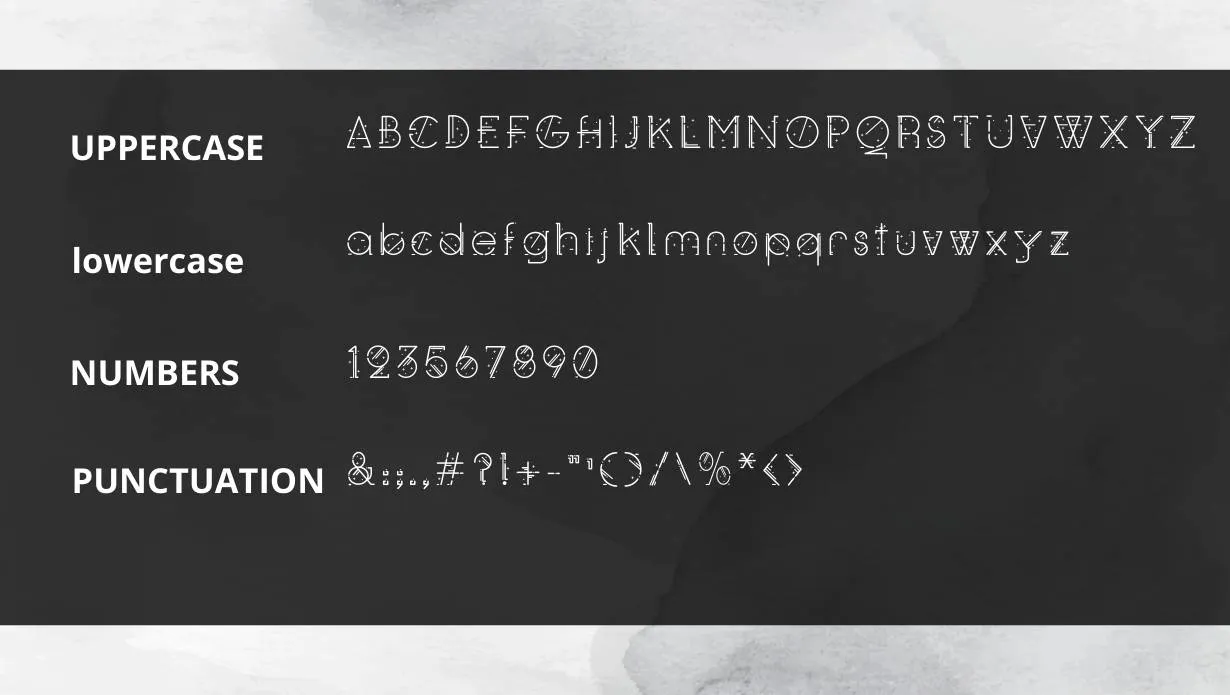
Lieben Font is a popular fancy font that is used by many designers. It is known for its clean and modern look. The font was created by German designer Jens Küster in 1997. Lieben Typeface is available in both regular and bold weights.
View of Lieben Font
Lieben Font Info
| Name | Lieben Font |
| Designer | Jens Küster |